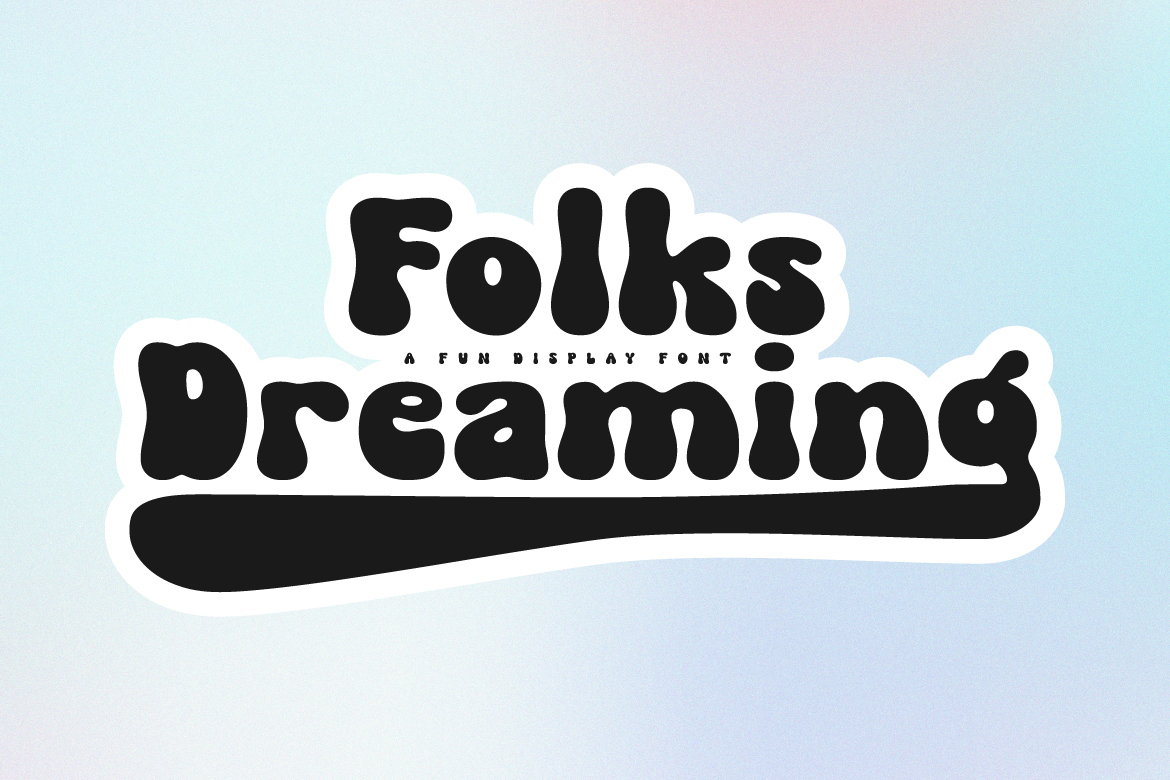
Folks Dreaming
Folks Dreaming: Comes in a fun groovy style. Great for t-shirt designs, social media posts, posters, covers and more.
- Features: Uppercase, Lowercase, Numeral, Punctuation, Swash, Multilingual & PUA Encoded.